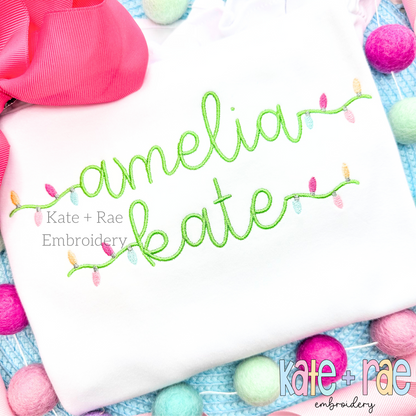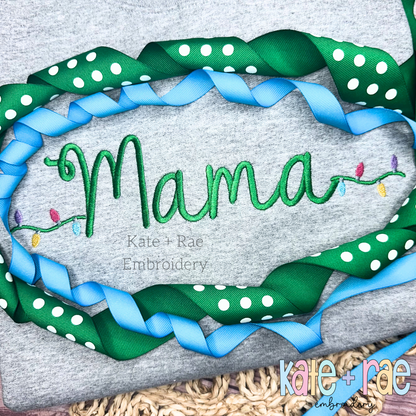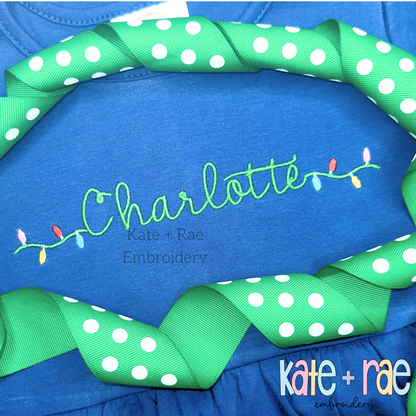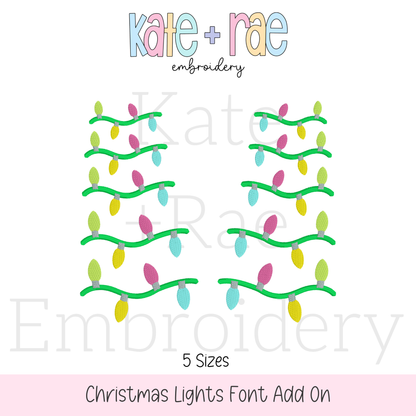
Christmas Lights Font Add On Embroidery Design
Add a festive finishing touch to your lettering with this Christmas lights font add on! Designed to pair with our Hello Satin Stitch Font, it's perfect for holiday names and stockings.